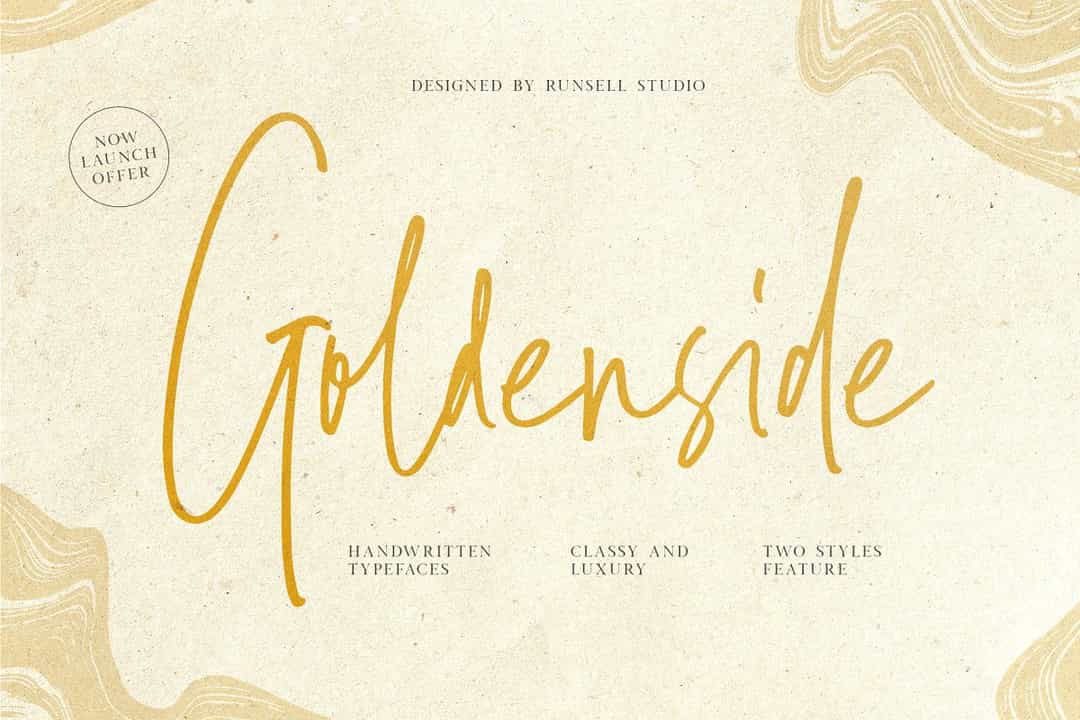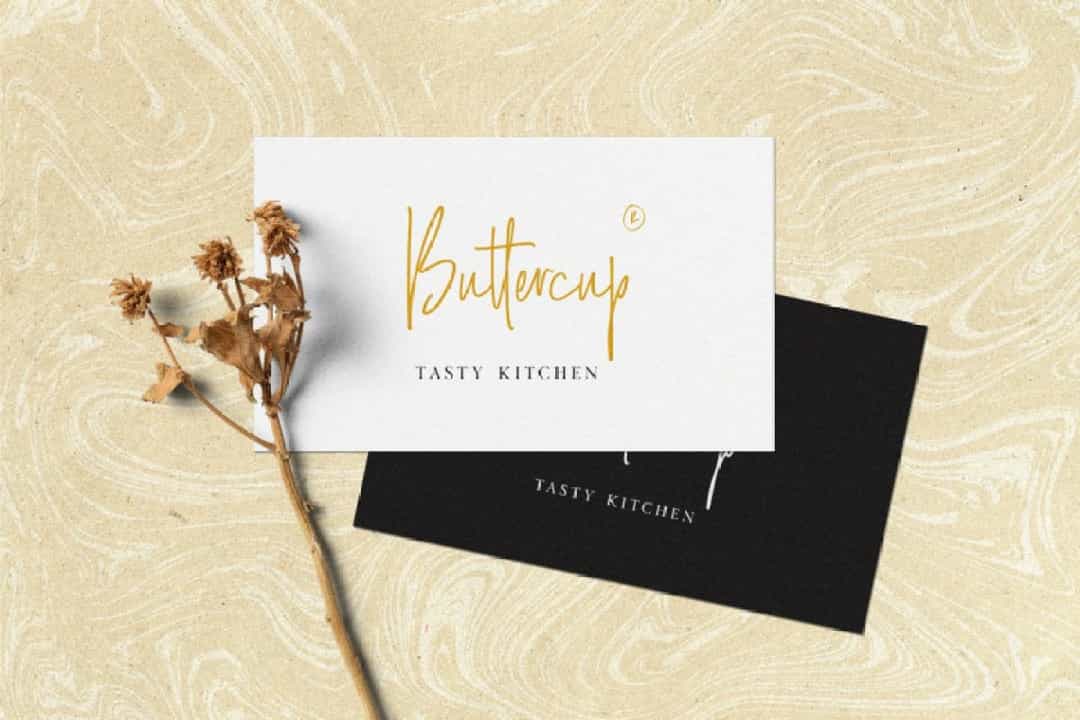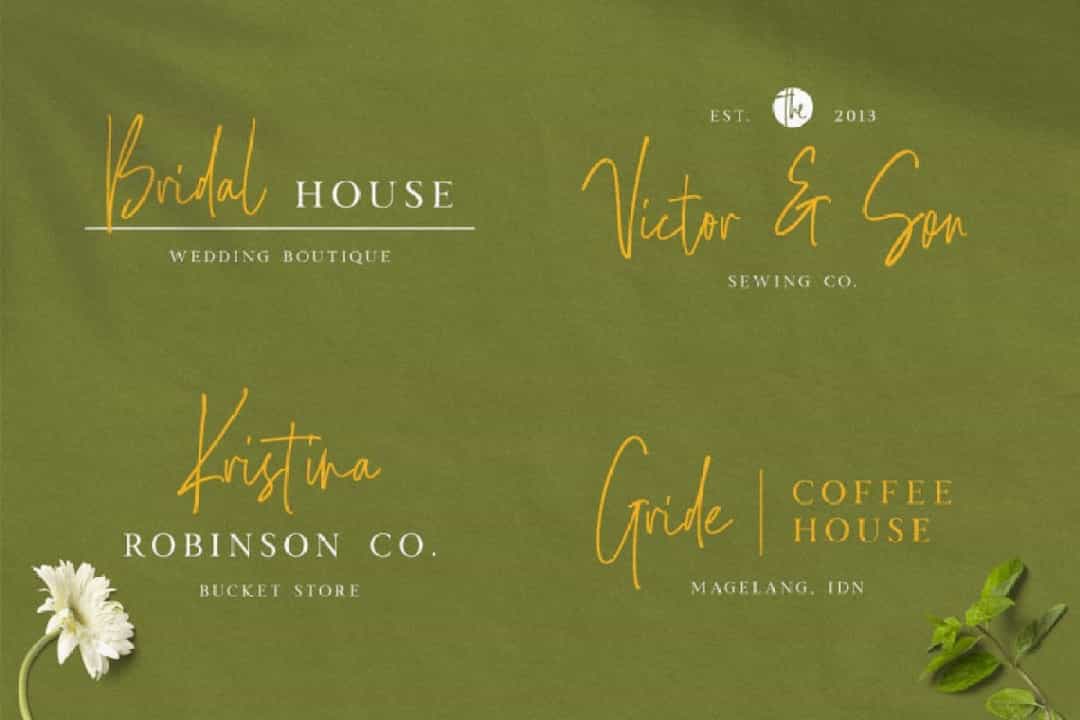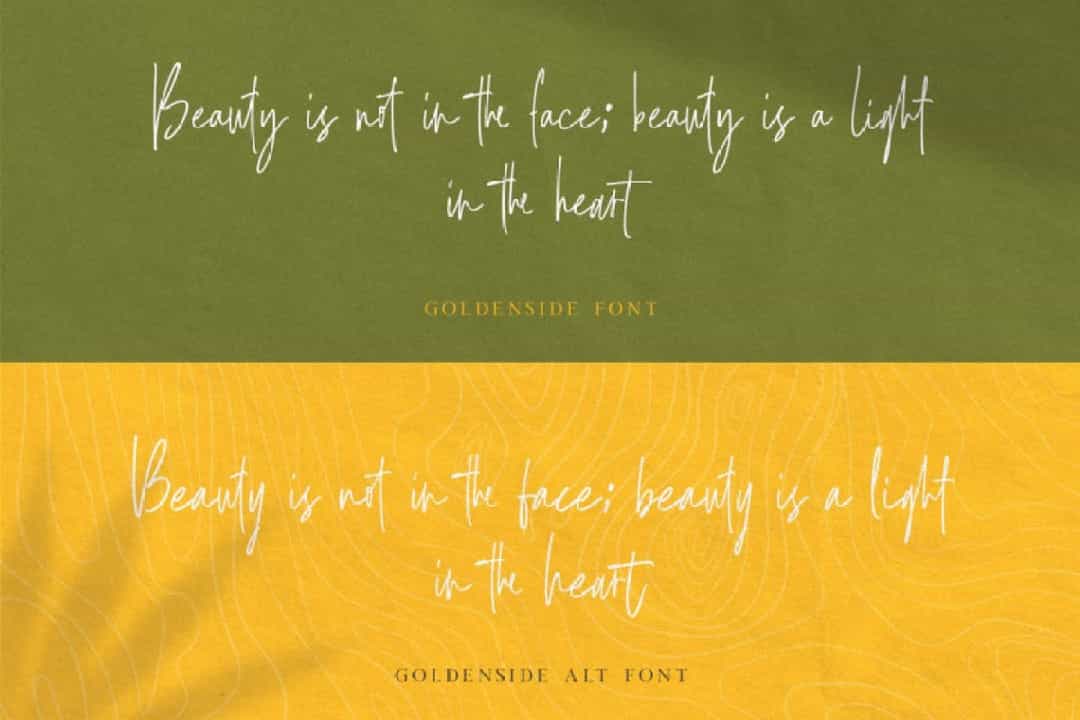
Goldenside is an elegant handwriting font with an elegant curve, different attractive features that can be used in creation of original style projects. Goldenside can be applied for the stationary designs, signatures, logos, typography and quotes that are used in books and magazines, covers of the books or the magazines, headers of the websites, apparel packaging, branding projects and any other related project.